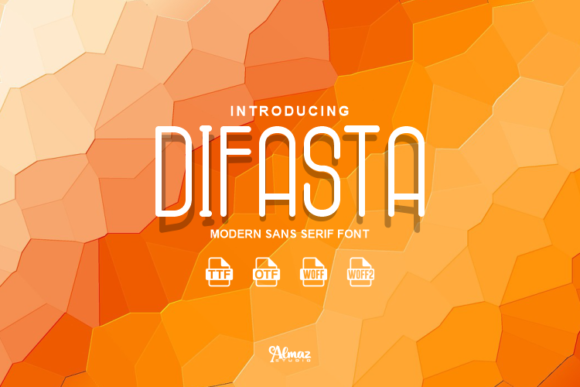
The Ultimate Typographic Hack for Designers
Have you ever stared at a blank page, struggling to fit the perfect amount of text into a design? You know, that moment when your creative vision is held back by the constraints of traditional typography. You’re not alone. As designers, we’re always on the lookout for ways to push the boundaries of what’s possible, and that’s where the Difasta Font comes in.
This ultramodern, ultra-compact sans serif typeface is specifically designed for maximum compression, allowing you to fit more words in a line than ever before. With its sleek and modern aesthetic, the Difasta Font is a game-changer for designers who need to make a big impact with minimal space. Whether you’re working on a poster, web graphic, or t-shirt design, the Difasta Font is the perfect tool to help you achieve your creative vision.
Difasta Font Key Features
- Unique Characteristics: Difasta Font features a unique blend of modern and vintage elements, making it an ideal choice for designers and artists looking to add a touch of elegance and sophistication to their work.
Difasta Font Review
Overall, I’m quite impressed with the Difasta font. It’s a bold, sans-serif typeface that’s perfect for making a statement in your designs.
- Its unique, futuristic aesthetic gives it a modern and edgy feel.
- The font is highly legible, even at small font sizes.
- It’s a great choice for titles and headings, as it grabs the user’s attention.
- The font may not be the best choice for body text, as it can be a bit too bold and overwhelming.
- Some characters, such as the lowercase ‘e’, can be a bit difficult to read.
- The font is not as versatile as some other sans-serif typefaces, and may not be suitable for all design projects.
Overall, I would recommend the Difasta font for designs where you want to make a bold statement. Just be mindful of its limitations, and use it sparingly in body text and other areas where legibility is crucial.
Tips for Getting the Most Out of the Difasta Font
1. Use the Difasta font for headings and titles to add a touch of elegance and sophistication.
2. Experiment with different font sizes and styles to create visual interest.
3. Pair the Difasta font with other fonts to create a unique and eye-catching combination.
2. Luxury brand marketing materials.
3. High-end event invitations and signage.
Alternatives to Difasta Font for Designers
The Great Vibes Font is a modern script font designed by Handmade Fonts. It is perfect for adding a touch of elegance and sophistication to designs, such as invitations, wedding cards, and luxury branding materials. It is more elegant and refined compared to Difasta Font, which is more playful and casual.
The Carolyna Pro Font is a modern calligraphy font designed by Carolyna. It is ideal for creating beautiful and unique designs, such as logos, packaging, and branding materials. Compared to Difasta Font, Carolyna Pro has a more refined and sophisticated look, making it suitable for high-end designs.
The Alex Brush Font is a script font designed by Laura Worthington. It is perfect for adding a touch of warmth and personality to designs, such as logos, packaging, and branding materials. While Difasta Font has a more playful feel, Alex Brush Font has a more organic and natural look, making it suitable for designs that require a more relaxed tone.